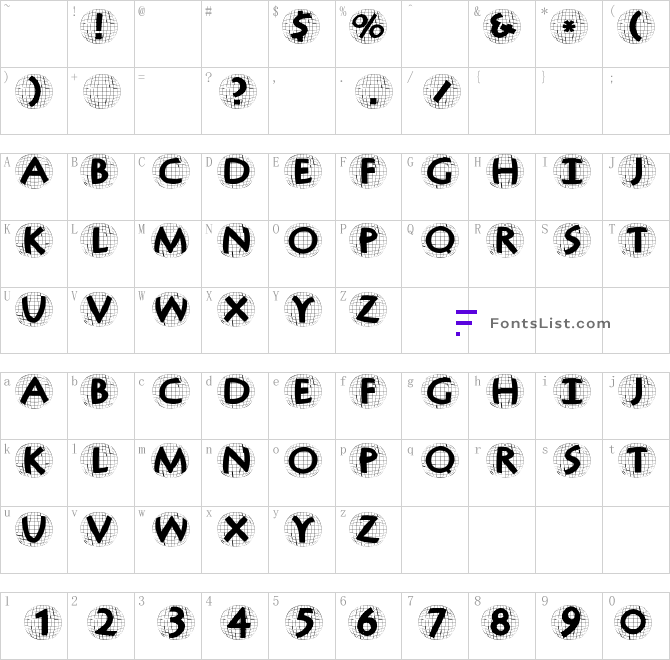
- Font Name:AntiquaInGridBalloons
AntiquaInGridBalloons.ttf is a very beautiful artistic font, AntiquaInGridBalloons.ttf is widely used in the design and printing of various books and pictures,AntiquaInGridBalloons.ttf has a strong visual impact,AntiquaInGridBalloons.ttf is a commonly used font in newspapers, magazines and books, and is used in posters, e-commerce Poster design, store design, logo design, font design and other fields.AntiquaInGridBalloons.